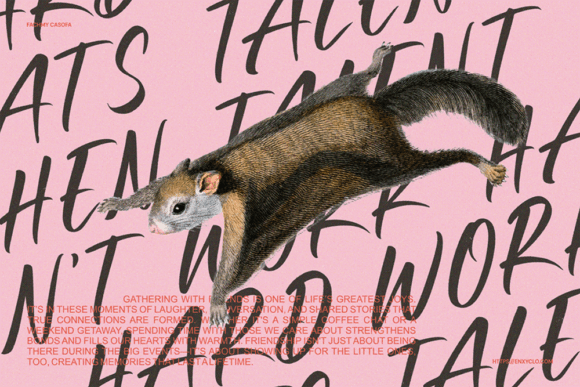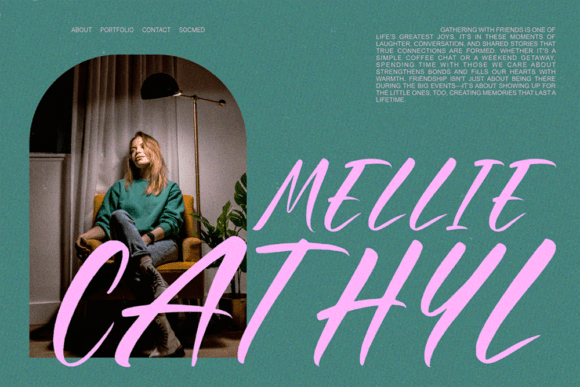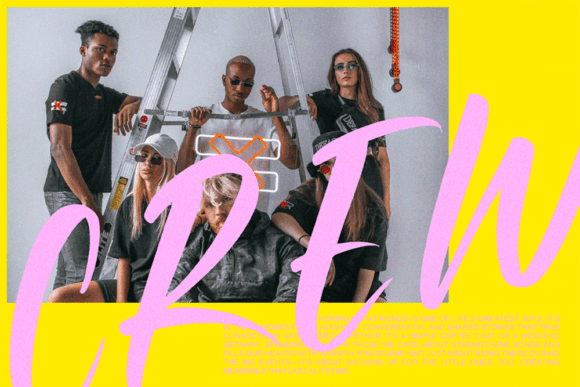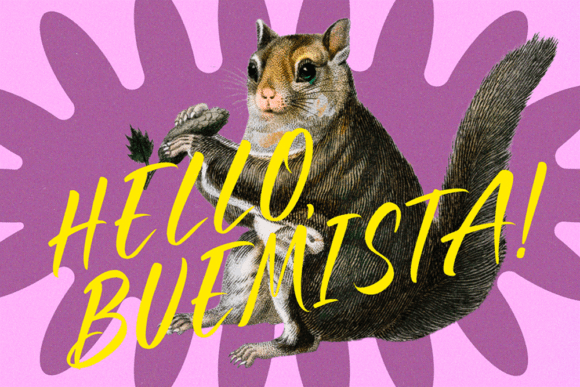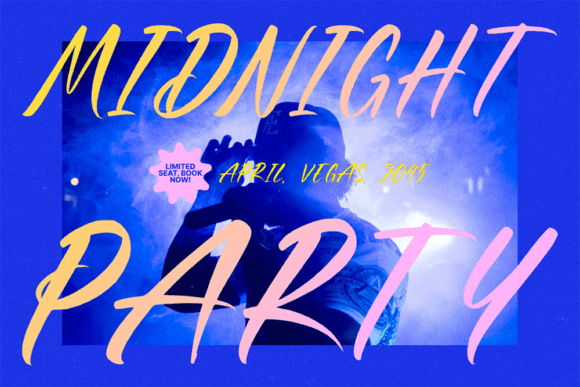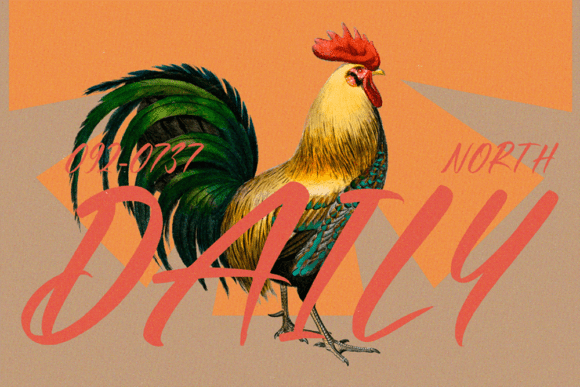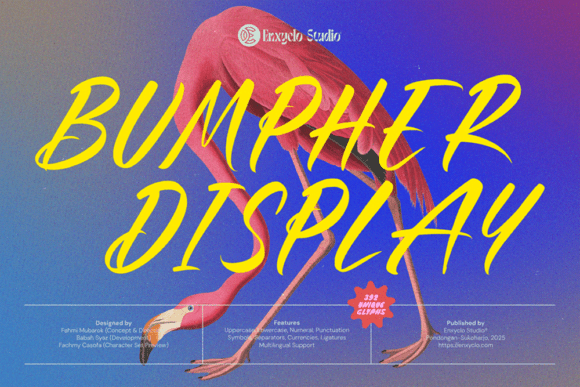
Bumpher Font: Elevate Your Designs with a Bold and Energetic Script
In the world of typography, fonts play a crucial role in conveying the tone and personality of a brand or creative project. If you’re looking for a font that exudes energy, vibrancy, and a dash of nostalgia, look no further than Bumpher Font. This stunning script font is designed to bring a bold personality to your designs, making it perfect for headlines, branding, and creative projects that demand attention.
Inspired by Retro Charm and Modern Flair
Bumpher Font draws inspiration from retro hand-lettered signs and modern brush calligraphy, fusing nostalgic flair with contemporary aesthetics. The result is a unique and captivating font that blends the best of both worlds. Each letter is carefully crafted with sweeping strokes and expressive curves, giving Bumpher a dynamic and lively feel that’s sure to engage your audience.
Key Features of Bumpher Font
• Vibrant and Energetic: Bumpher Font is designed to make a statement, with bold and expressive letterforms that demand attention.
• Retro-Chic: Inspired by retro hand-lettered signs, Bumpher Font brings a touch of nostalgia to your designs.
• Modern Twist: With its modern brush calligraphy influences, Bumpher Font also boasts a fresh and contemporary feel.
• Expressive Curves: Each letter is crafted with sweeping strokes and expressive curves, giving Bumpher a dynamic and lively feel.
• Perfect for Headlines: Bumpher Font is optimized for headlines and titles, making it perfect for branding, advertising, and creative projects.
Why Choose Bumpher Font?
With so many fonts to choose from, why should you choose Bumpher Font for your next project? Here are just a few compelling reasons:
• Stand Out from the Crowd: Bumpher Font is a unique and eye-catching font that’s sure to differentiate your brand or project from the competition.
• Emotional Connection: With its bold and expressive letterforms, Bumpher Font is designed to evoke emotions and create a connection with your audience.
• Versatile: Bumpher Font can be used in a wide range of creative projects, from branding and advertising to packaging and digital design.
• Easily Readable: Despite its bold and expressive nature, Bumpher Font is surprisingly easy to read, making it perfect for headlines and titles.
Tips for Using Bumpher Font
To get the most out of Bumpher Font, here are a few tips to keep in mind:
• Use it for Headlines: Bumpher Font is optimized for headlines and titles, so use it to make a statement and grab attention.
• Experiment with Colors: Bumpher Font looks great in a wide range of colors, so don’t be afraid to experiment and find the perfect hue for your design.
• Pair it with Other Fonts: Bumpher Font pairs well with a wide range of fonts, so feel free to get creative and experiment with different combinations.
• Use it for Branding: Bumpher Font is perfect for branding and packaging, so consider using it to create a bold and eye-catching identity for your brand.
In conclusion, Bumpher Font is a vibrant, energetic script font that’s perfect for designers and crafters looking to add a bold personality to their creative projects. With its unique blend of retro charm and modern flair, Bumpher Font is sure to stand out from the crowd and make a lasting impression on your audience. Whether you’re looking to create a bold brand identity, craft eye-catching headlines, or simply add some personality to your designs, Bumpher Font is an excellent choice.